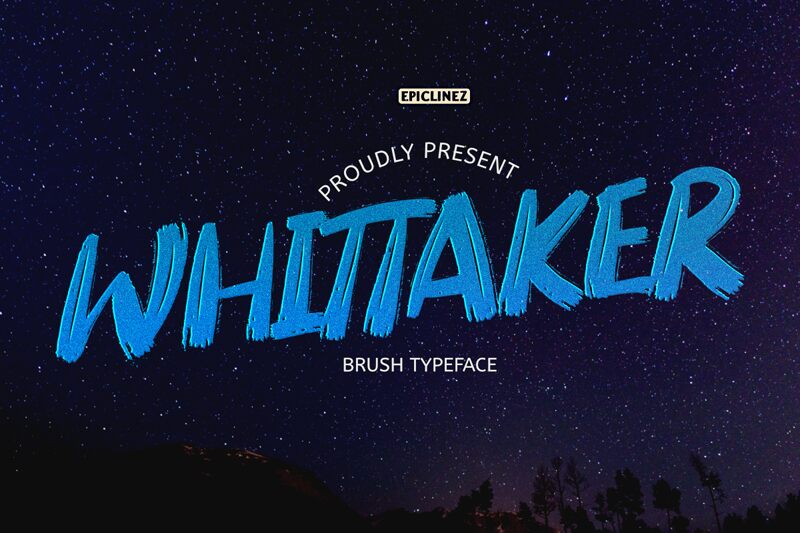
Whittaker font by Epiclinez is a free brush font that showcases an expressive, hand-drawn appearance. This dynamic typeface exudes an urban, artistic feel with a modern flair, making it versatile for a range of creative projects. Its casual and energetic nature is well-suited to grab attention and create an impact.
Whether you’re working on branding, designing headline titles, or adding a unique touch to posters, magazines, invitations, social media posts, product packaging, or apparel designs, Whittaker adds an artistic edge. Its casual look also makes it perfect for logotypes, quotes, and personal projects.